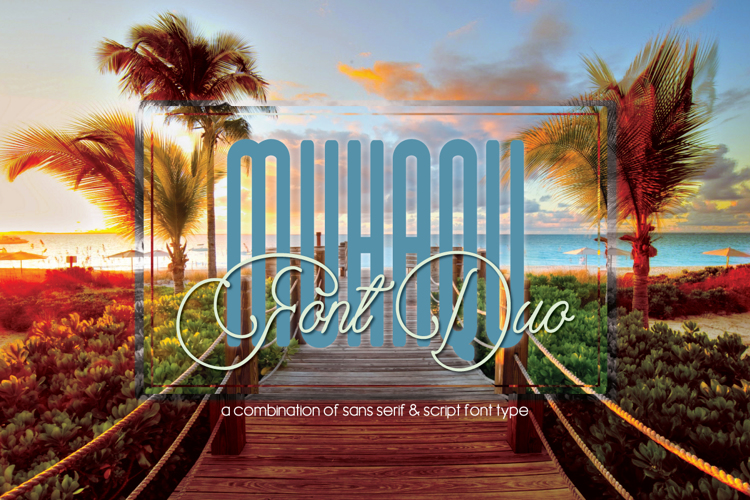
Muhaqu Script Font
by SOFDesign
About Muhaqu Script Font
Muhaqu Font Duo will be perfect for many different projects such as logos & branding, invitation, stationery, wedding designs, social media posts, advertisements, product packaging, product designs, label, photography, watermark, special events or anything that need handwriting taste.